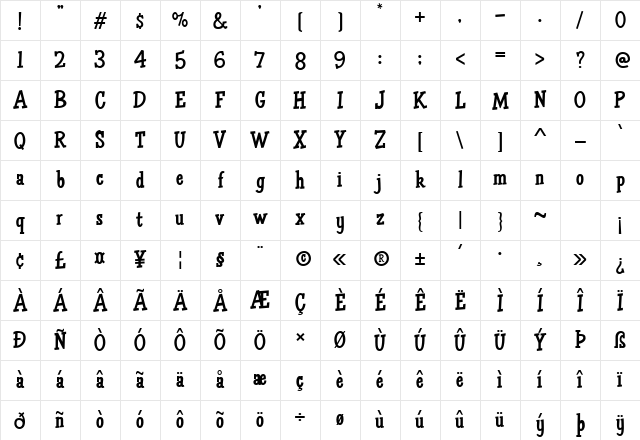
HFF Air Apparent Regular Free Font
HFF Air Apparent Regular
Foundry: Have Fun with Fonts
Designer: Have Fun with Fonts
HFF Air Apparent Family
Design Context for HFF Air Apparent
HFF Air Apparent is a composed and adaptable typeface that performs quietly and consistently across a wide range of design contexts.